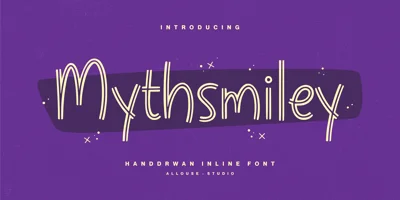
Mythsmiley Font
Mythsmiley Font is perfect for fantasy gaming, children's books, whimsical branding, fairy tale projects, magical entertainment, happy lifestyle brands, and enchanting design applications. This delightful typeface brings mythical joy and magical happiness to fantastical design projects.
Mythsmiley Font is exciting because it combines mythical wonder with cheerful happiness, featuring enchanting letterforms that convey magical joy and fantastical delight while maintaining exceptional readability and whimsical appeal across fantasy applications.
The Mythsmiley Font family includes regular and magical variations with mythical character elements and cheerful styling details. This enchanting collection provides designers with joyful options for creating memorable and magically delightful brand experiences.
Mythsmiley Font offers designers access to a magically crafted typeface that embodies the perfect fusion of mythical wonder and pure happiness. This enchanting font features whimsically designed letterforms with magical details that create immediate associations with fantasy joy, mythical happiness, and enchanted delight. The typeface showcases playful proportions and magical aesthetics that enhance fantastical communications while maintaining professional functionality and broad appeal. Its mythical character makes it particularly suitable for entertainment brands and fantasy projects that require typography capable of conveying magical joy, mythical wonder, and enchanted happiness. Mythsmiley Font delivers exceptional magical impact for applications where ordinary fonts feel too mundane for fantasy communications and whimsical branding. The font's enchanting appeal and magical aesthetic make it an essential tool for designers working on projects that require typographic expression of mythical joy, fantasy happiness, and magical delight that resonates with audiences seeking authentic fantasy experiences and enchanting visual communication.